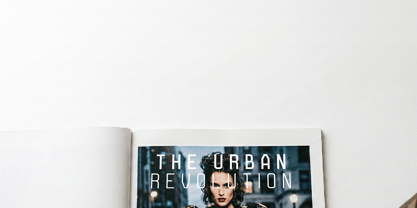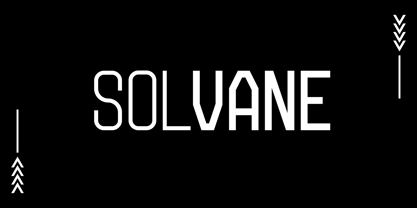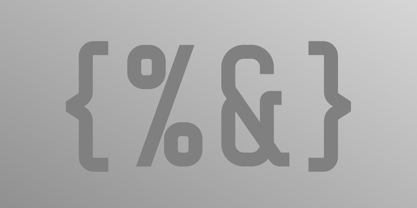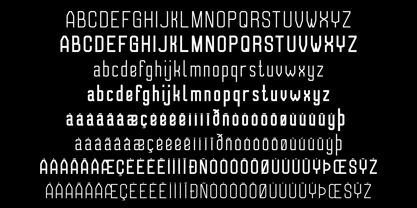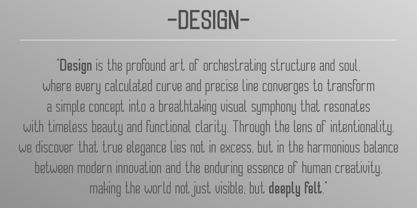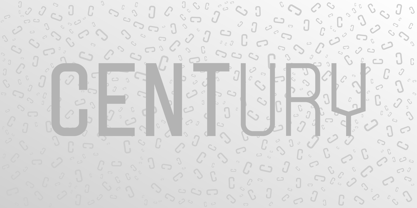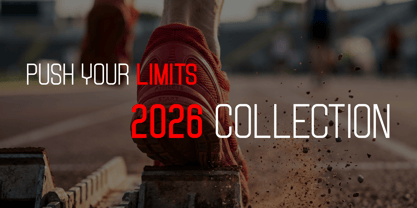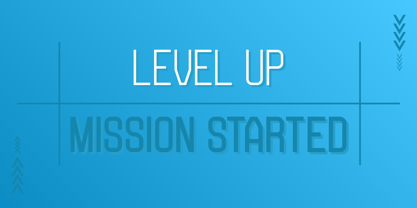
Solvane
The Solvane Font Family was designed by Ihsan Nugroho and published by Pictranoosa. Solvane contains 2 styles and family package options. More about this family
Solvane is a sleek, modern, and geometric sans-serif typeface meticulously crafted for a futuristic aesthetic. Characterized by its condensed structure and softened rounded corners, Solvane strikes a perfect balance between technical precision and friendly approachability. Its flat terminals provide a sharp, clean finish, ensuring maximum clarity even in tight layouts. Available in two essential weights Regular and Bold, Solvane is designed to command attention. The Regular weight offers a sophisticated look for modern interfaces and editorial content, while the Bold weight delivers high-impact power for headlines and branding. It comes equipped with extensive multilingual support for European 1 (Western European) languages, making it a reliable choice for global communication.